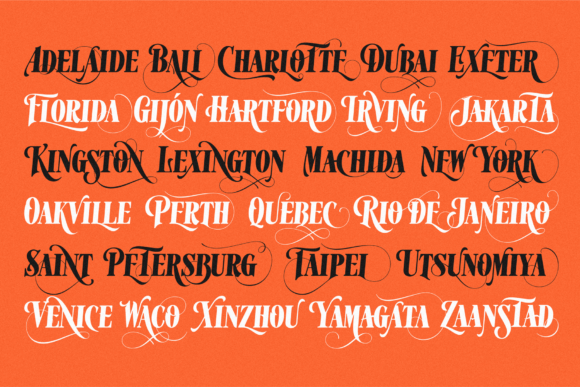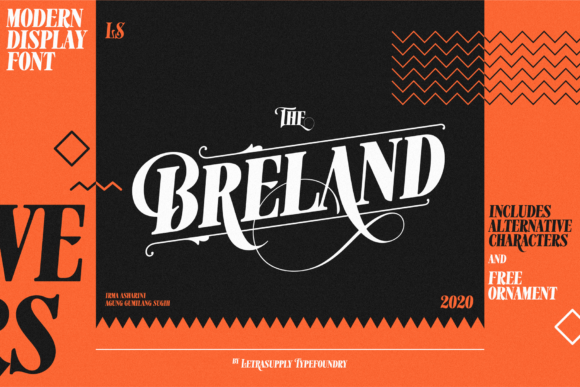
The Breland Font: Elevate Your Designs with Elegance
I still remember the frustration of working on a design project, pouring my heart and soul into it, only to feel like something was missing. The layout was perfect, the colors were on point, but the font just wasn’t doing it for me. I was going back and forth with a client, trying to find the perfect fit, when I stumbled upon the Breland font. It was like a breath of fresh air – the high-contrast display font had a distinct editorial feel that instantly elevated my design. In this article, I’ll share my experience with Breland, its features, and how to make the most of it in your designs.
An Honest Review of Breland Font
What I Love About Breland ✨
• 💯 High-contrast design: Breland’s sleek lines and dramatic contrast make it perfect for headlines, titles, and statements that demand attention.
• ✅ Editorial feel: This font exudes sophistication and elegance, making it ideal for luxury brands, editorials, and high-end designs.
• 🌈 Versatility: Despite its distinct style, Breland can be paired with a variety of fonts and design elements to create a unique look.
• ⚠️ Legibility at small sizes: Breland’s high-contrast design can make it challenging to read at smaller font sizes. Use it for headlines or large text to maximize impact.
• 🤔 Limited use cases: While Breland is stunning, it might not be the best fit for body text or long-form content. Stick to shorter texts or use it as an accent font.
The Story Behind Breland Font
Breland was designed with the intention of creating a font that embodies sophistication and elegance. Inspired by classic editorial designs, the creator aimed to craft a font that would add a touch of luxury to any project. The result is a stunning high-contrast display font that’s perfect for making a statement.
Q: What is Breland font best used for?
A: Breland font is ideal for headlines, titles, and statements that require a touch of sophistication and elegance. It’s perfect for luxury brands, editorials, and high-end designs.
Q: Can I use Breland font for body text?
A: While Breland is stunning, it’s not recommended for body text or long-form content. Its high-contrast design can make it challenging to read at smaller font sizes.
Q: Is Breland font available in different weights?
A: Breland font comes in a range of weights, allowing you to experiment with different styles and contrasts in your design.